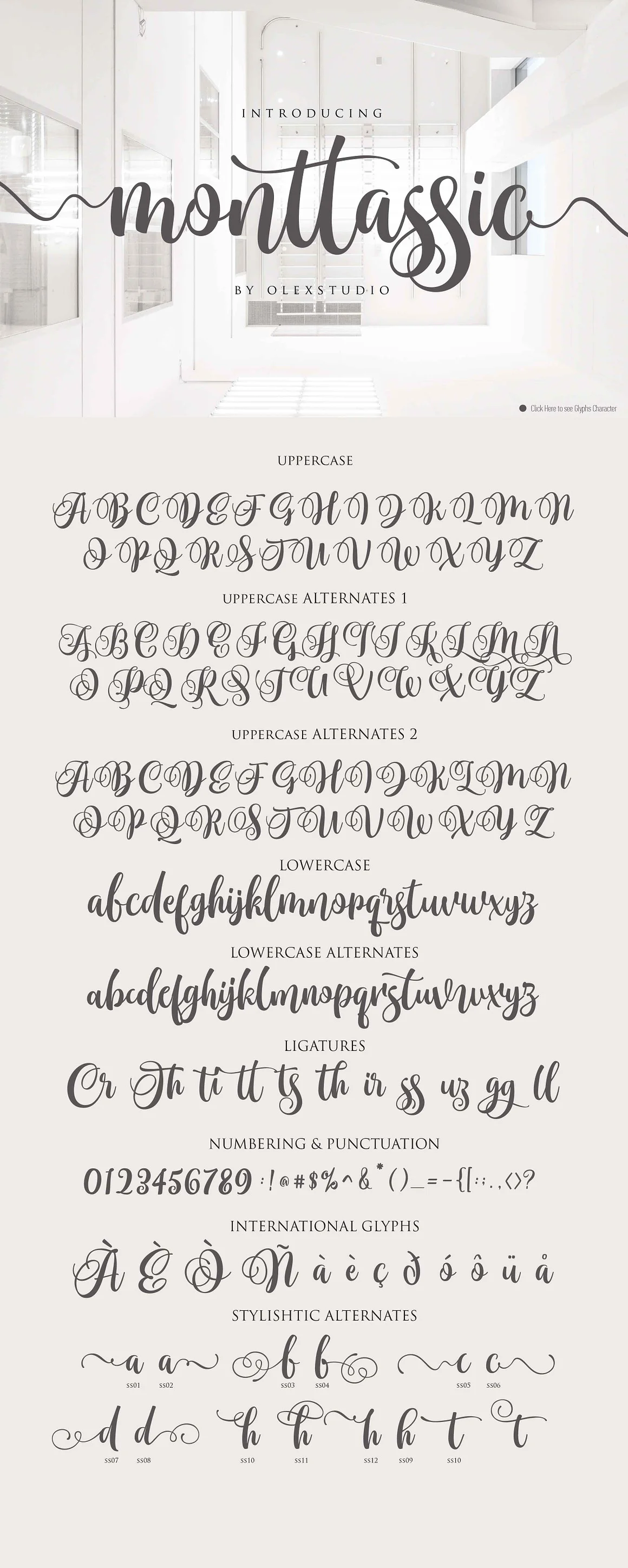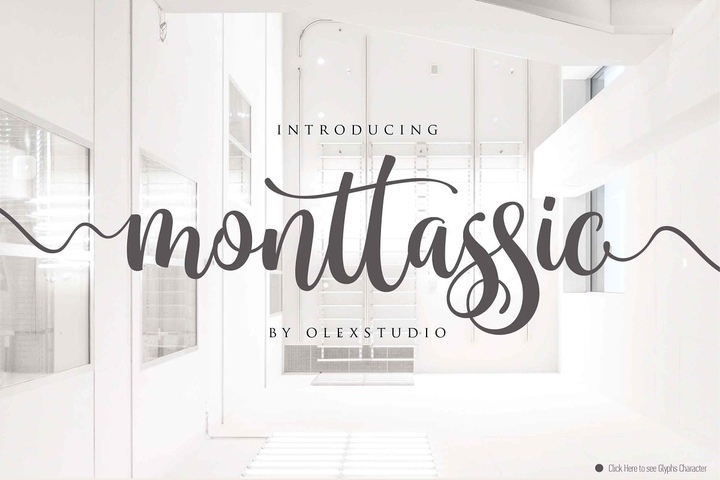
Monttassic - Luxury Script Font
Monttassic - Luxury Script Font is perfect for luxury fashion houses, high-end jewelry branding, exclusive resort marketing, premium champagne labels, royal wedding invitations, luxury yacht branding, five-star hotel signage, elite country club materials, prestigious award ceremonies, and opulent lifestyle magazines.
Monttassic - Luxury Script Font is exciting because it epitomizes the pinnacle of typographic luxury and aristocratic elegance, creating a script that embodies the exclusivity and refined taste of the world's most prestigious brands. This font brings unparalleled sophistication and regal grandeur to any project, making it ideal for ultra-luxury brands that cater to the most discerning clientele who demand nothing less than perfection. Its exquisite flourishes and majestic presence create an atmosphere of absolute luxury that commands respect and admiration.
Monttassic - Luxury Script Font family includes regular, medium, and bold weights, plus ornate swashes, royal flourishes, and exclusive decorative elements, providing designers with comprehensive tools for creating the most sophisticated luxury typography and prestigious brand experiences imaginable.
This magnificent script typeface combines centuries-old calligraphic mastery with contemporary luxury design excellence, making Monttassic - Luxury Script Font the ultimate choice for projects demanding absolute typographic perfection. The font's exquisitely crafted letterforms feature flowing elegance and aristocratic styling that reflects the finest traditions of luxury craftsmanship and royal correspondence.
Whether you're designing ultra-luxury brand campaigns, exclusive VIP materials, or prestigious cultural events, Monttassic - Luxury Script Font delivers unmatched elegance and aristocratic distinction. The font performs magnificently across all luxury applications, from intimate private invitations to grand environmental displays where absolute sophistication is essential.
Luxury brand professionals choose Monttassic - Luxury Script Font for its ability to instantly communicate the highest levels of exclusivity and refined taste while creating profound emotional connections with affluent audiences. The font's regal character makes it indispensable for Michelin-starred restaurants, luxury hotels, and exclusive private clubs.
Each letterform represents the apex of calligraphic artistry, featuring flowing magnificence and royal elegance that creates typography worthy of palaces, exclusive estates, and the world's most prestigious luxury experiences.